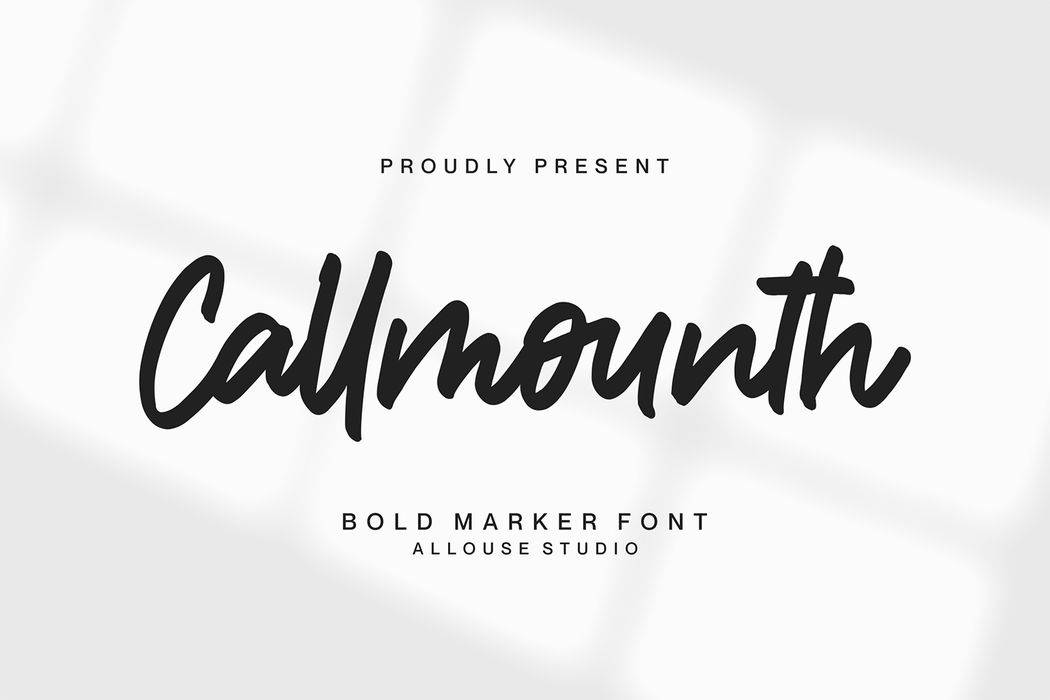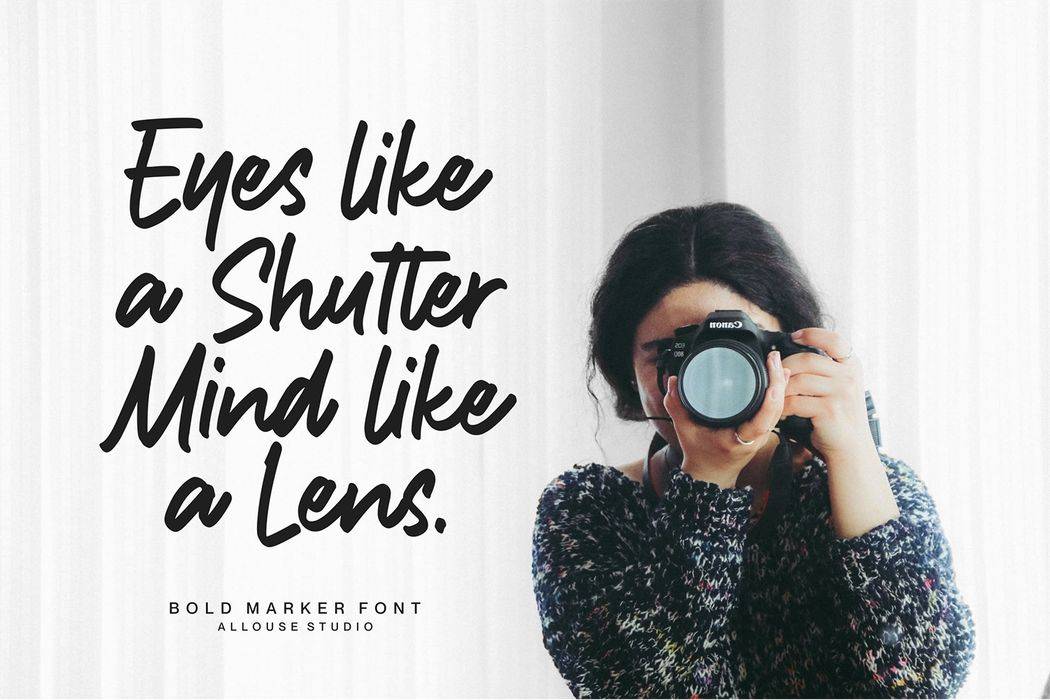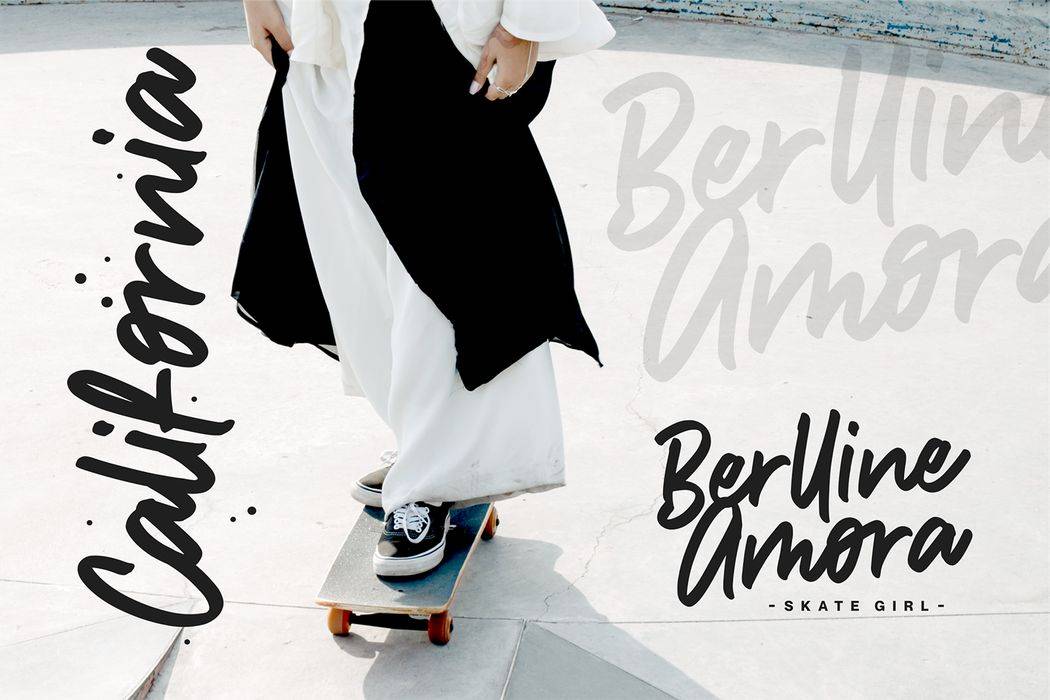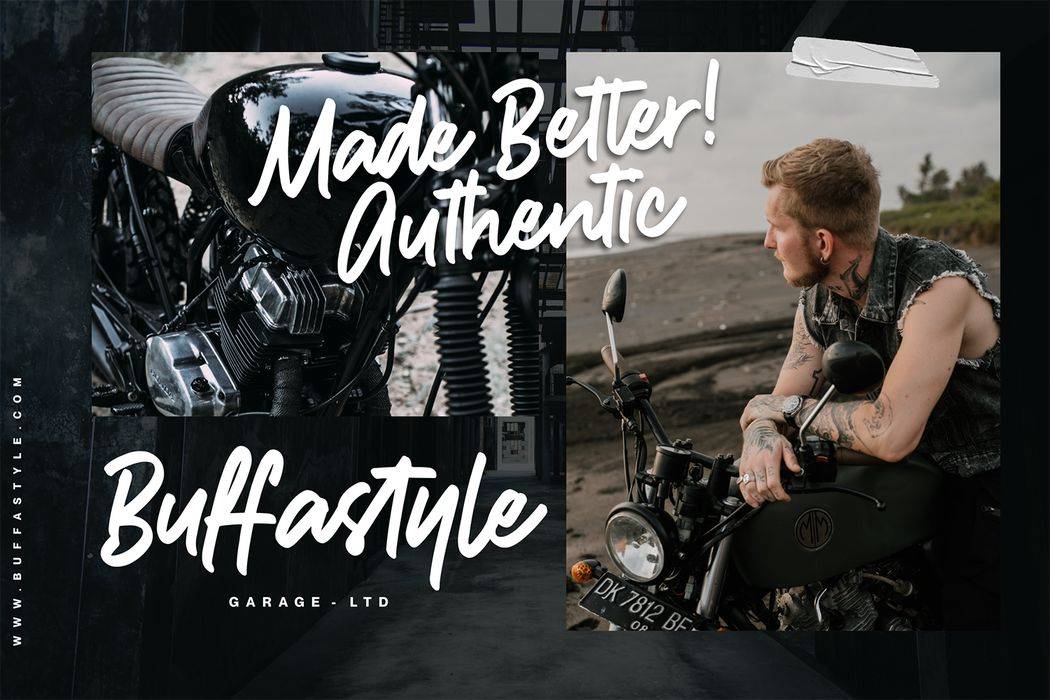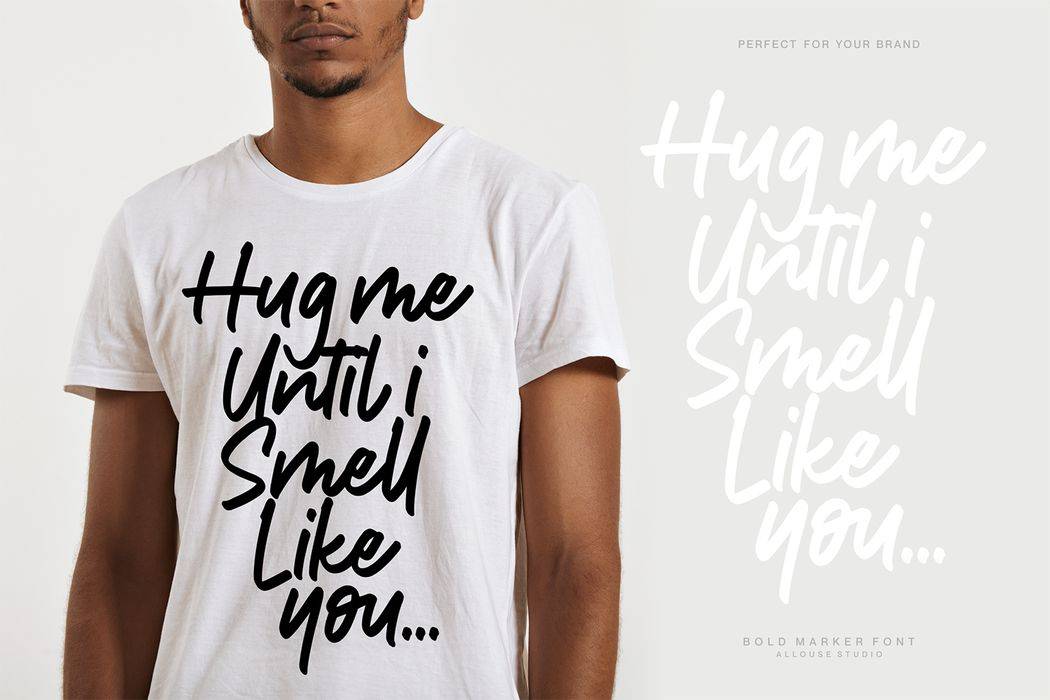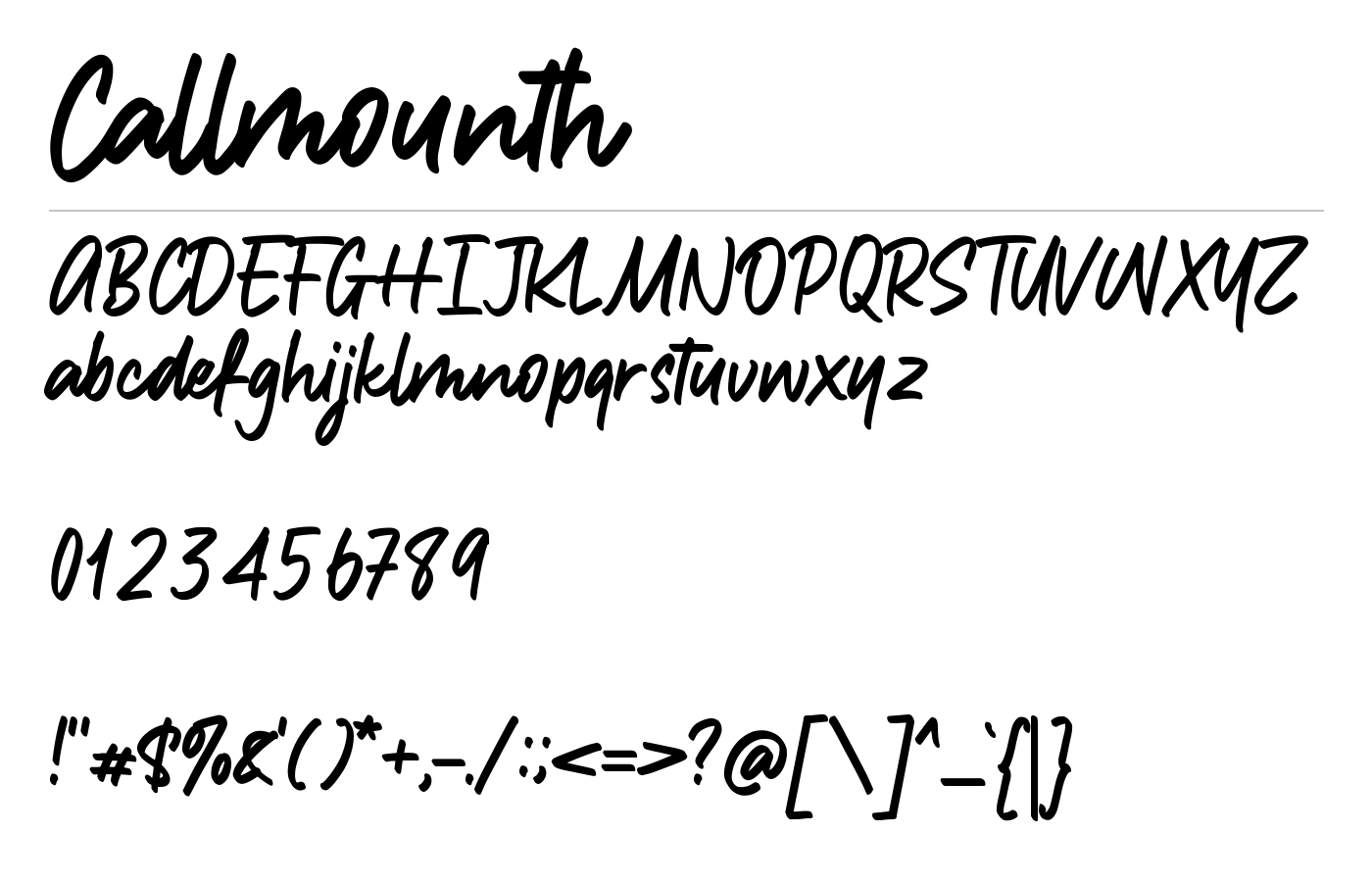
Callmounth is a lively, casual script font with a hand-drawn feel, featuring smooth, rounded strokes and moderate contrast that give it a friendly and approachable character. Its upright, flowing letterforms and consistent weight make it perfect for adding a personal, informal touch to branding, invitations, and creative projects. This font works best in headlines or short text where a warm, expressive style is desired.
Callmounth Font